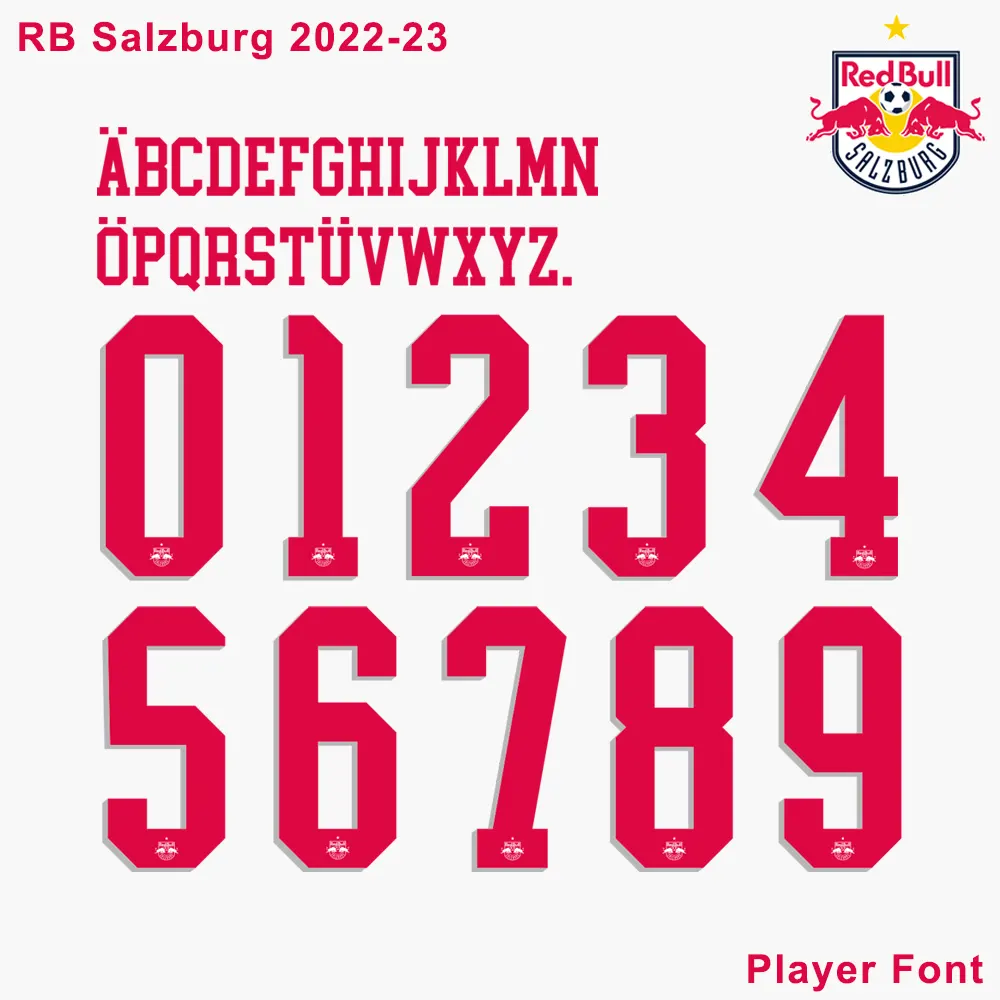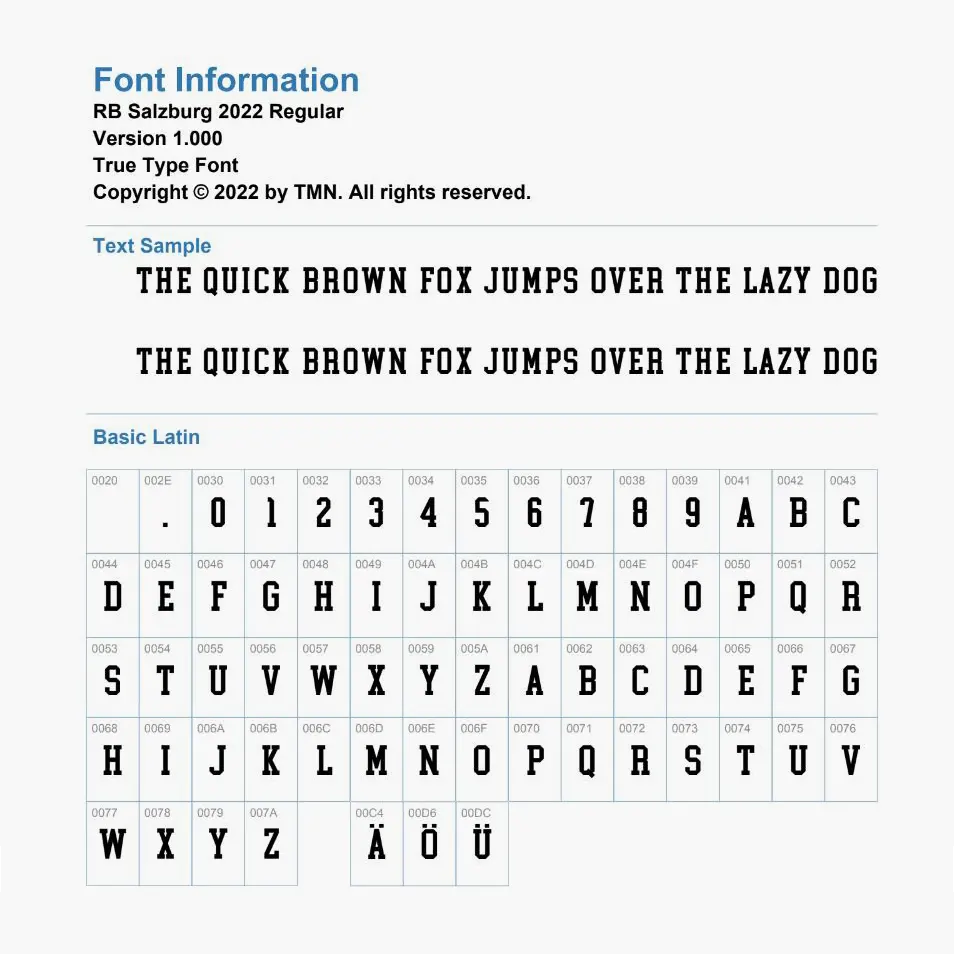
Unlock the professional look of the Austrian Champions with the RB Salzburg 2022-23 Kit Font.
The 2022-23 season for Red Bull Salzburg was defined by speed and success. This font kit captures the sleek, performance-oriented typography used on the home, away, and fourth kits. Whether you’re customizing a or creating dynamic sports graphics, this font provides the sharp lines and bold presence typical of the Red Bull football identity.
Complete Character Set: Includes all uppercase letters (A-Z) and the unique 0-9 number set with the characteristic modern edge.
High Precision: Manually traced vectors ensure clean edges for large-scale printing.
Versatile Use: Ideal for jersey customization, e-sports branding, and social media content.
Multi-Kit Compatible: Matches the typography used across the 22/23 home (white/red) and the specialized red fourth kit.